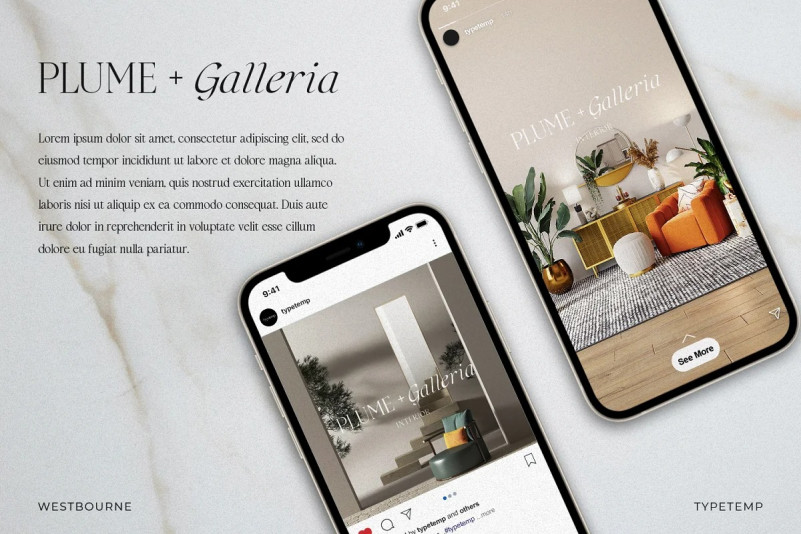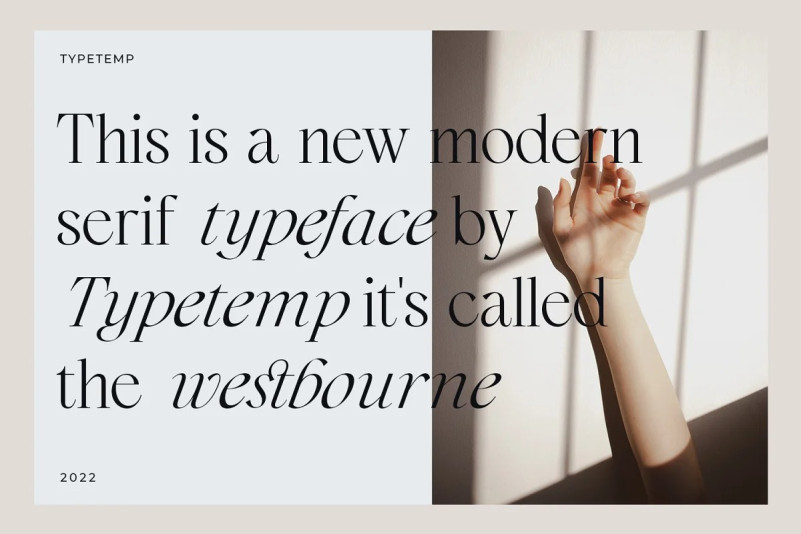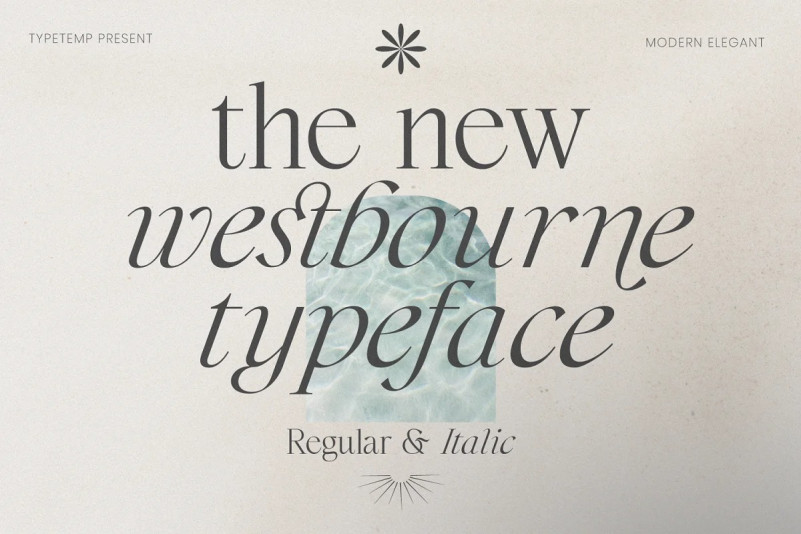
Westbourne Font
Westbourne Font – Modern Serif Typeface is a stylish font It has both modern look. Comes with alternatives and ligatures, helps to create stunning logos, quotes, posts, blog posts. branding projects, magazine imagery, wedding invitations, and much more.